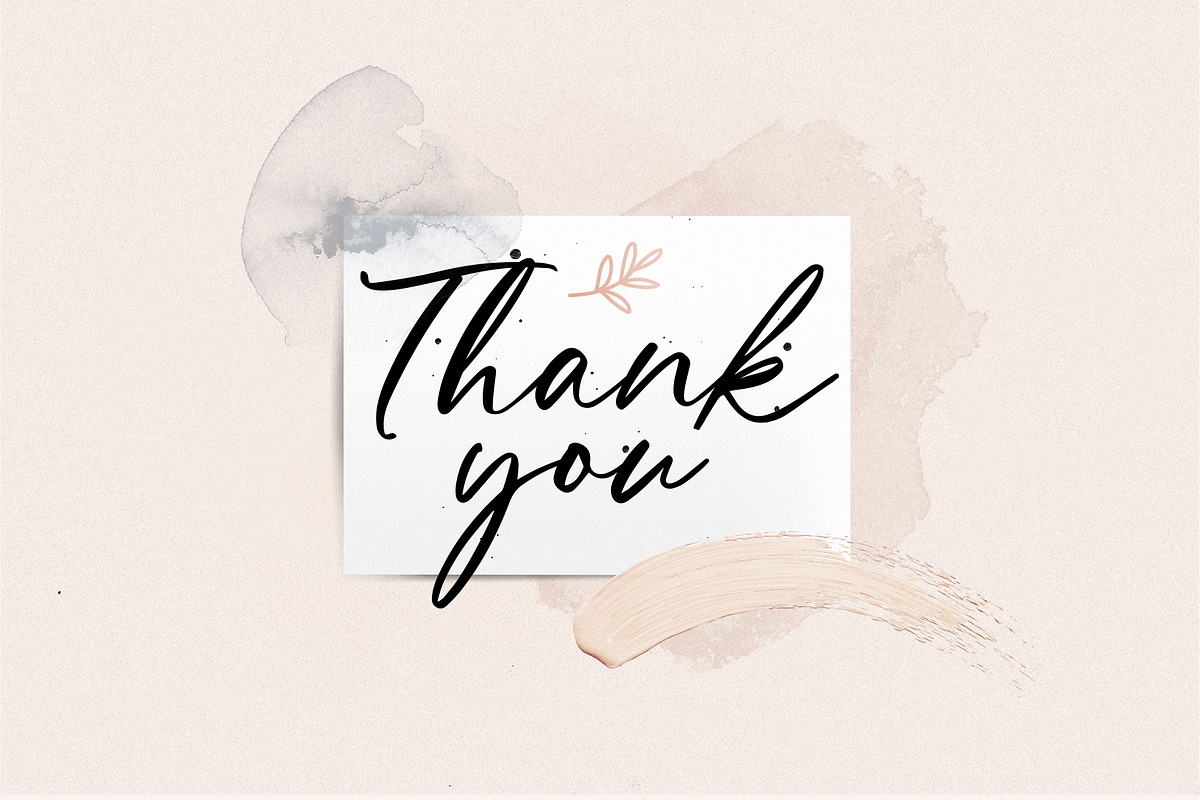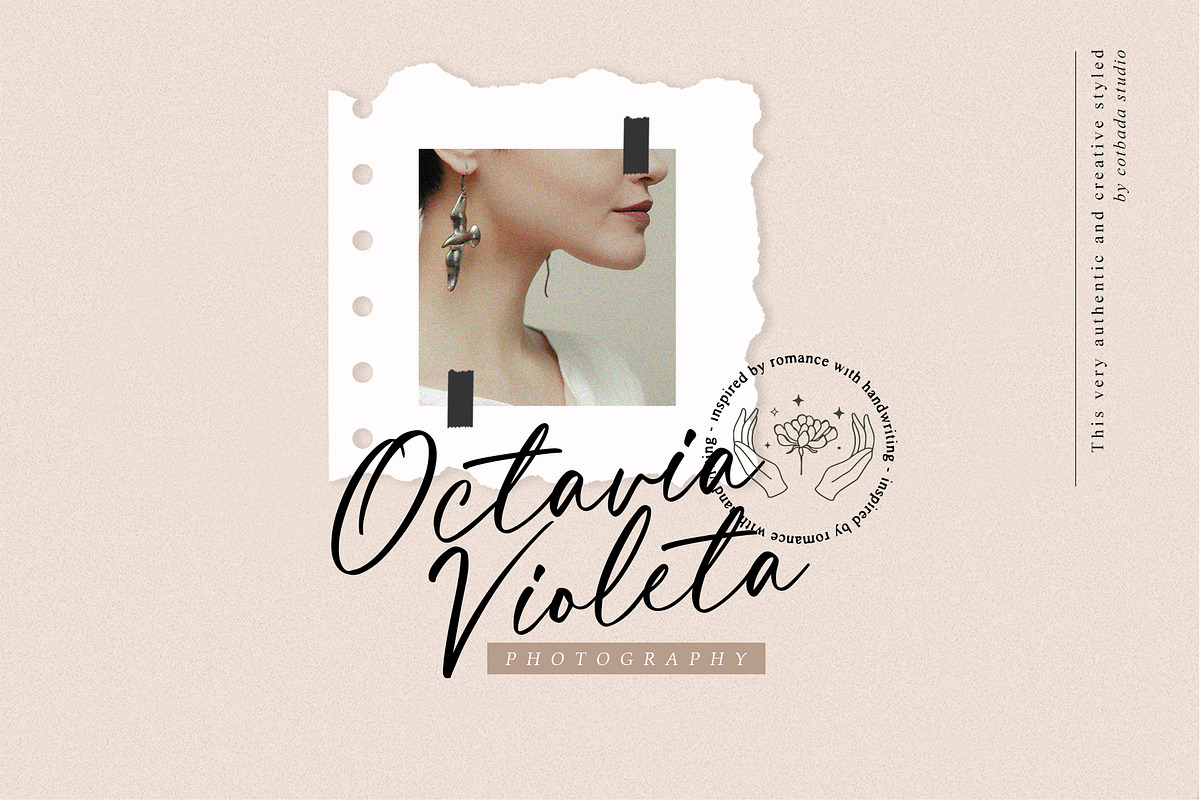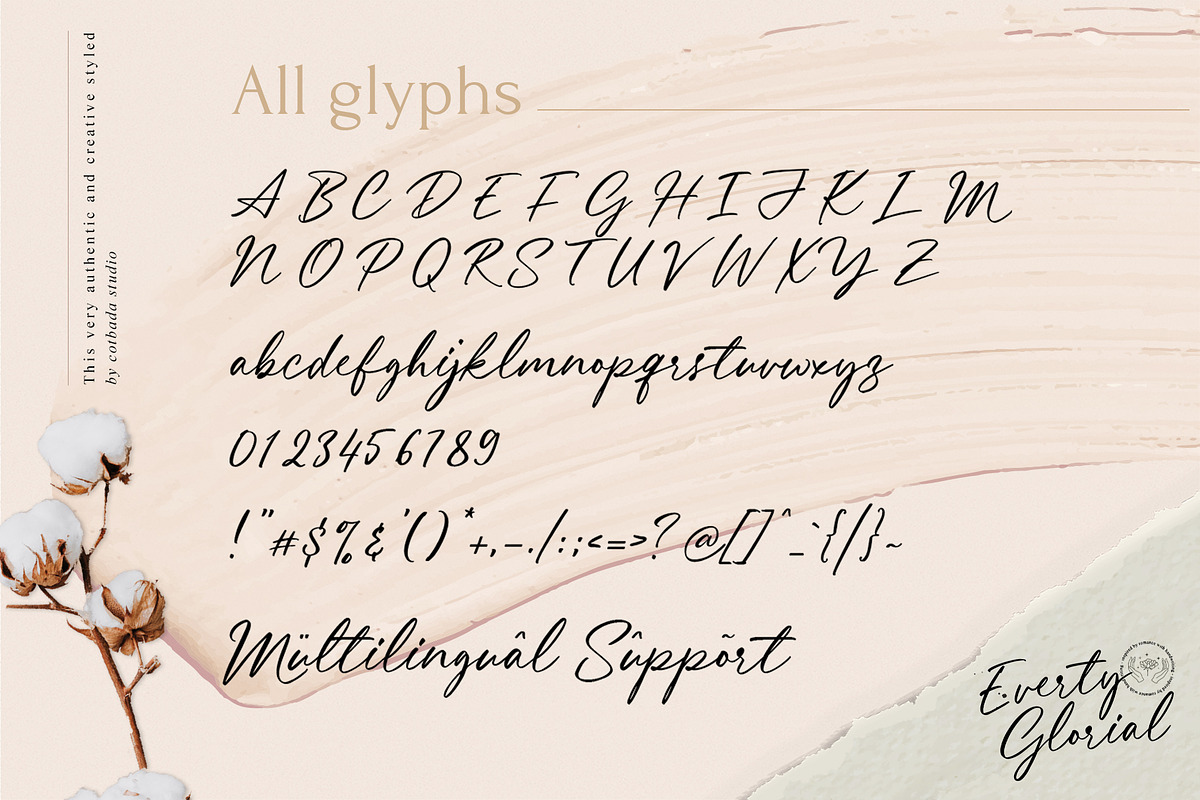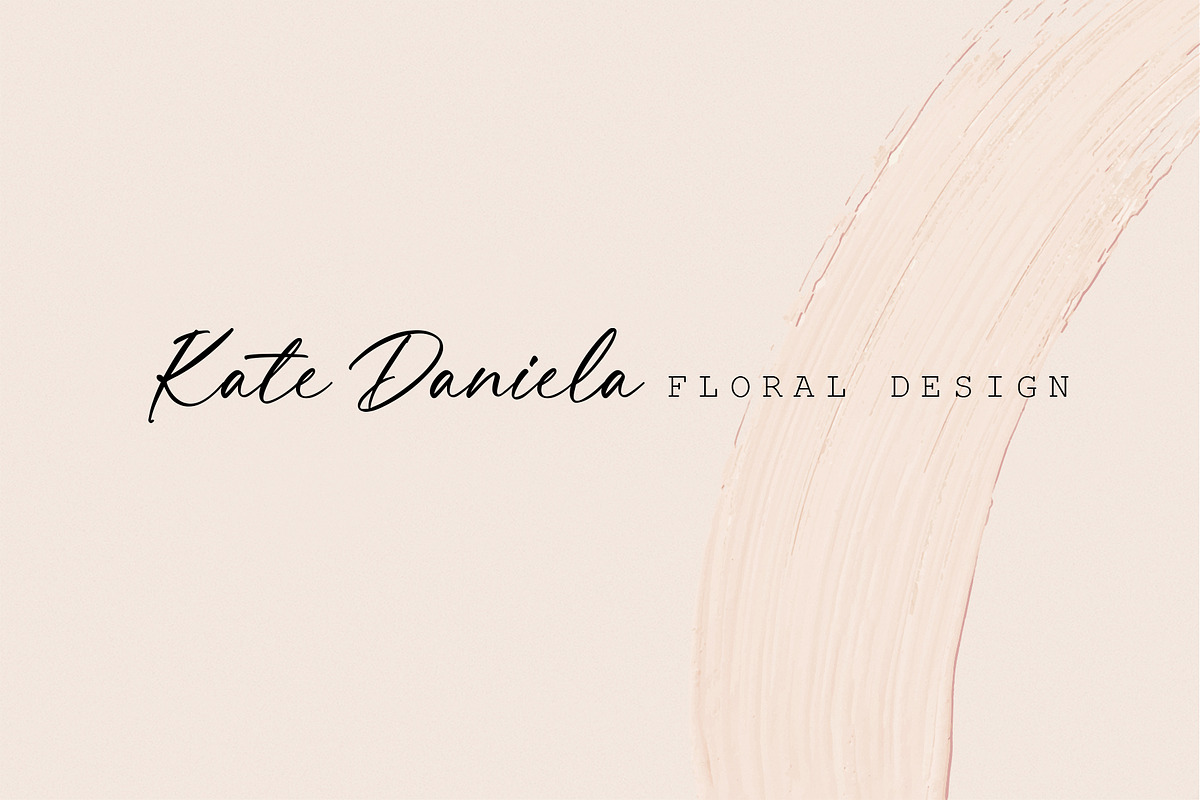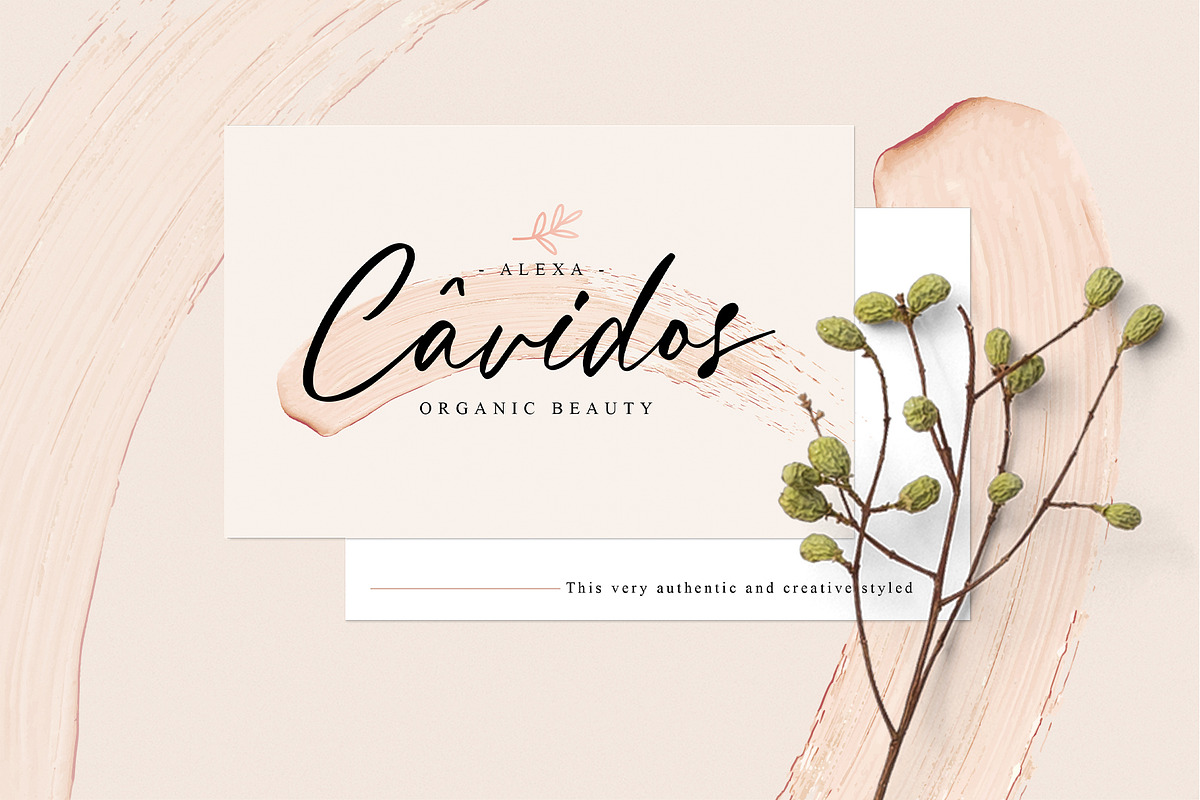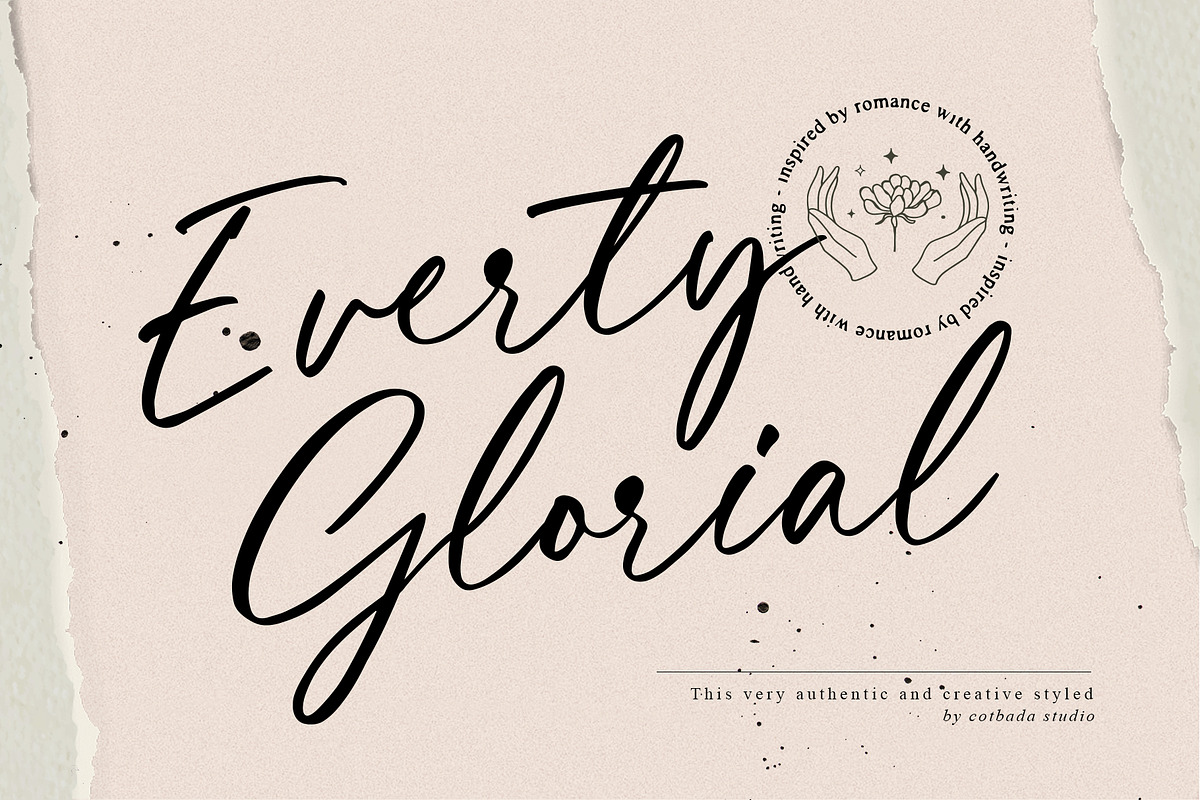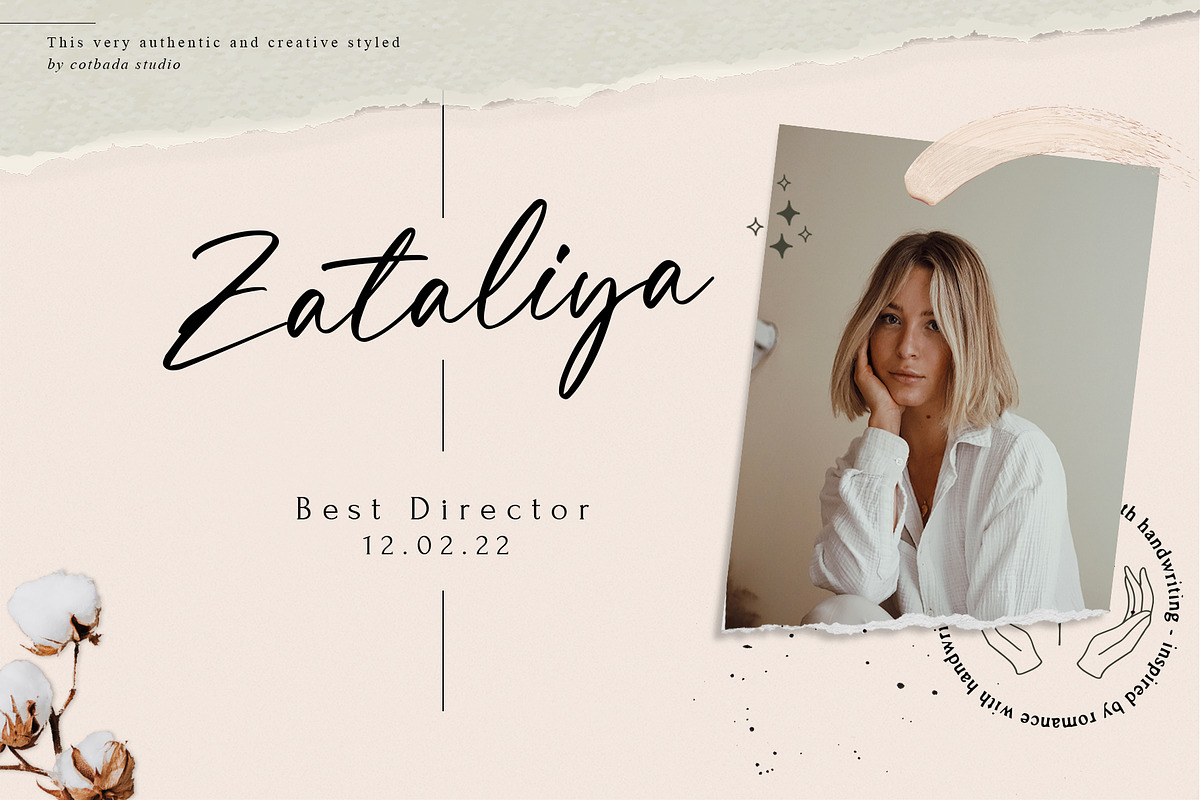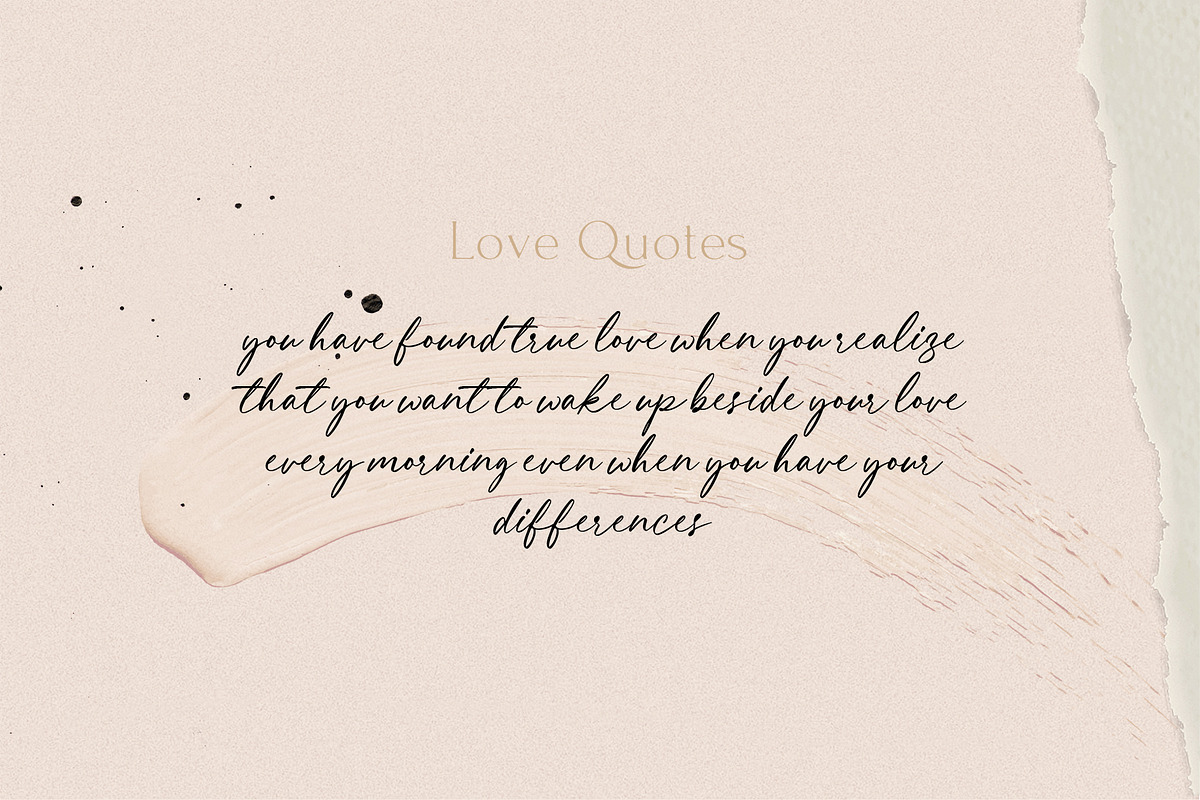
Everty Glorial Script
Everty Glorial Font Script is a unique, cool and modern handwritten font. It's hand look style makes it perfect for use in all your design projects be it logos, Labels, Packaging design, Blog headlines, Poster, Instagram Design, etc
Uppercase Characters*
Lowercase Characters*
Foreign Languages Support: ÀÁÂÃÄÅÇÈÉÊËÌÍÎÏÑÒÓÔÕÖØÙÚÛÜÝàáâãäåæçèéêëìíîïñòóôõöøùúûüýÿ